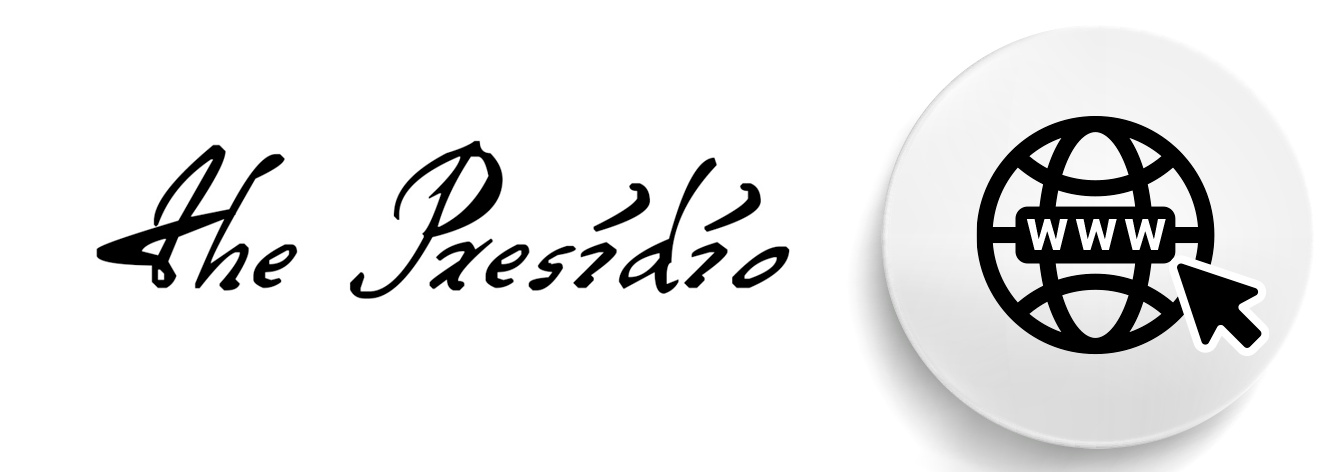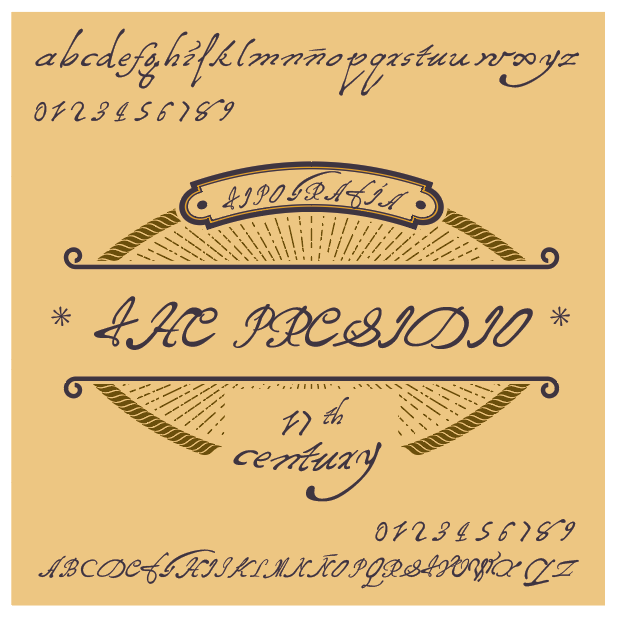
In mid-October, 1700, the Spanish Crown drafted a memorial, authorizing a series of pensions to help support fifteen impoverished residents of St. Augustine, most of them widows. The funds were to be drawn from Florida’s annual situado, or royal subsidy.
One of the recipients was a woman named Catalina Hernández de la Cruz, the widowed spouse of the adjutant Alonso Solana. The annual pension, which would later transfer to one of Catalina Hernández de la Cruz’s daughters, was granted based on her husband's twenty-eight years of loyal service, and the fact that he was killed by a lightning strike while working on the construction of St. Augustine’s fort, the Castillo de San Marcos
The Presidio font was inspired by these pension records and the stories they reveal.
The shape and size of the letters found in historical documents varied widely. As such, the spacing for these authentically historical fonts also fluctuates from style to style, with many of the letters extending beyond one or two lines. For best results, we recommend double spacing when using these fonts.